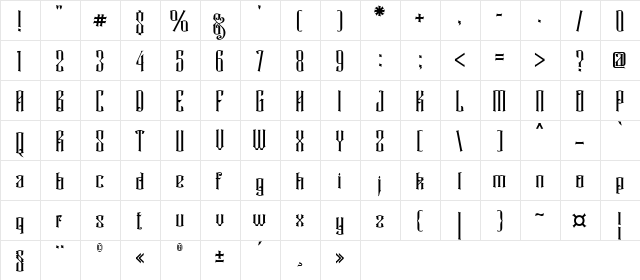
Rajawaley Regular
| Foundry | Nuryana Fajartama |
| Designer | Nuryana Fajartama |
Design Context for Rajawaley Typeface
Rajawaley is a composed and adaptable typeface that performs quietly and consistently across a wide range of design contexts.